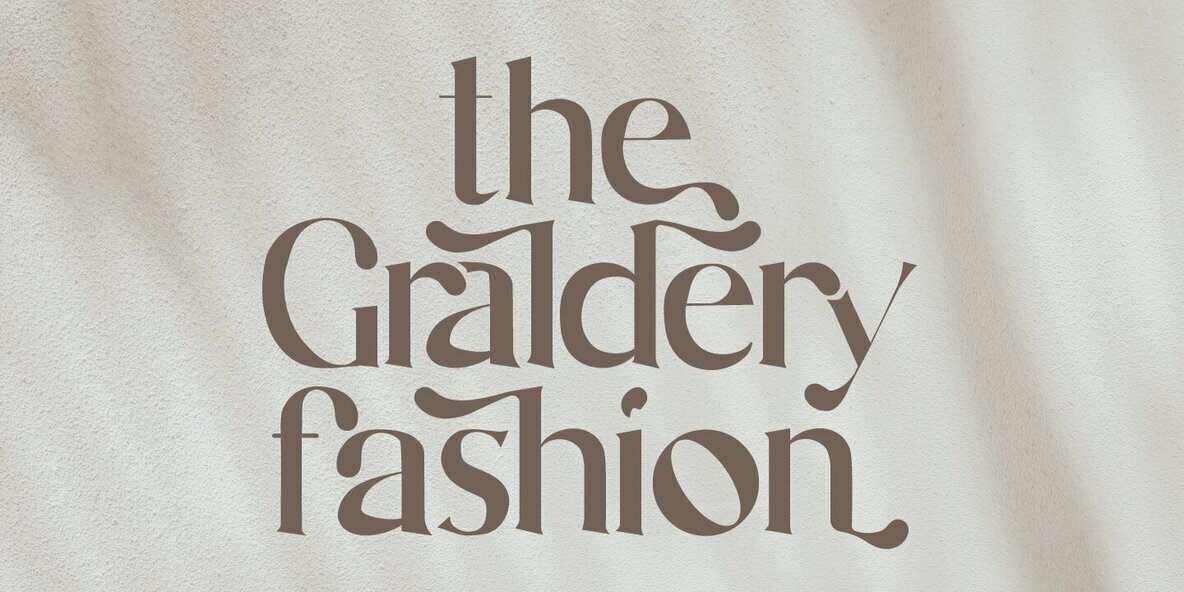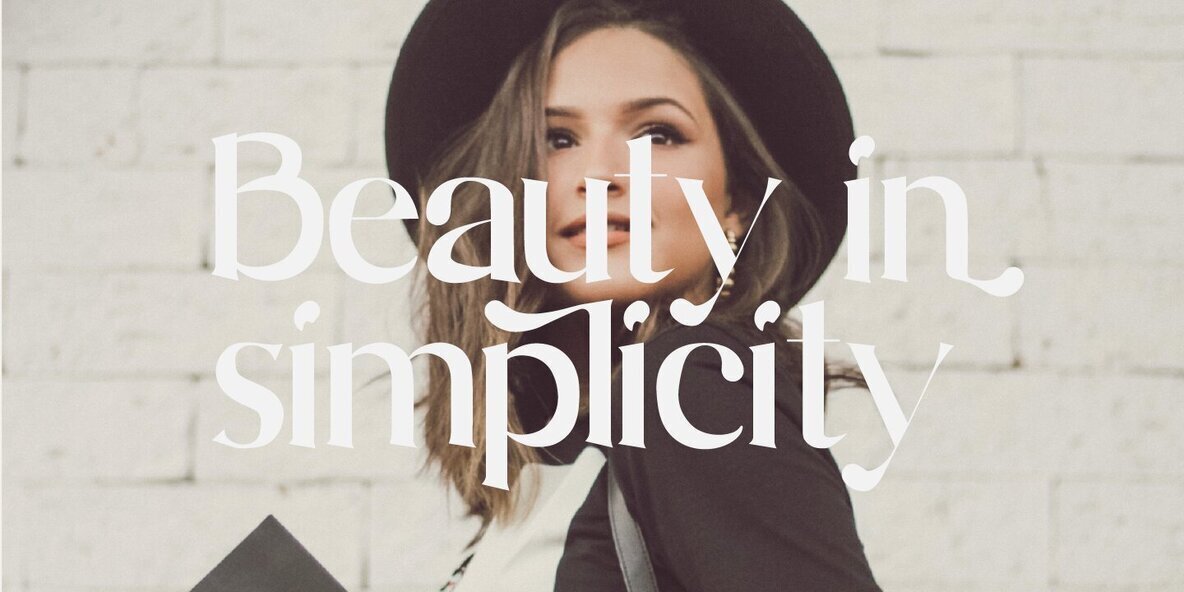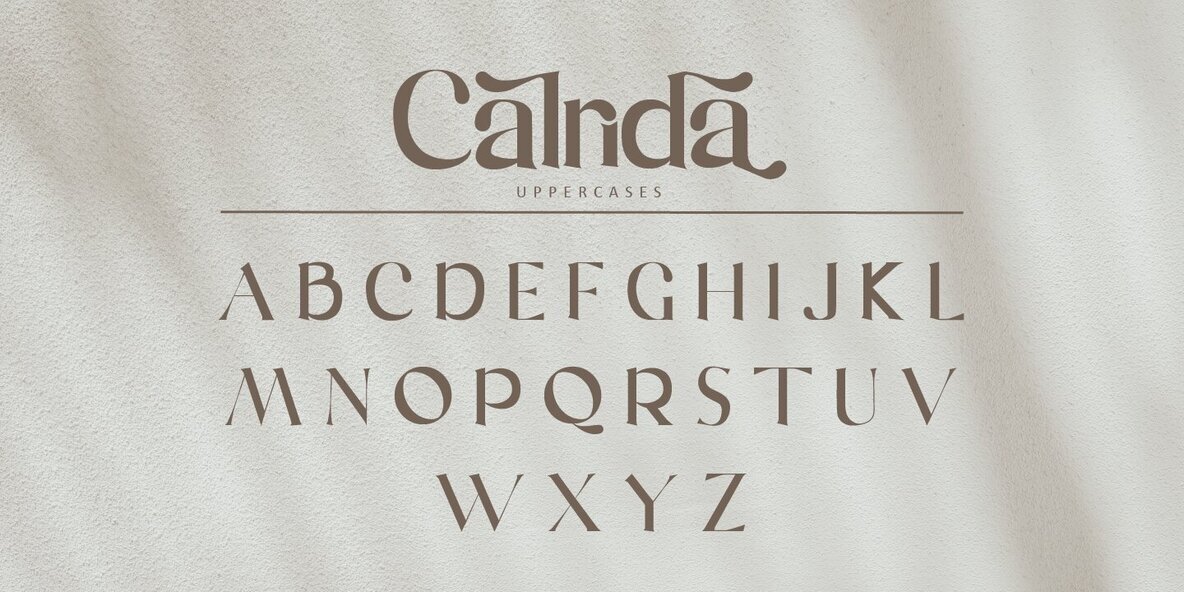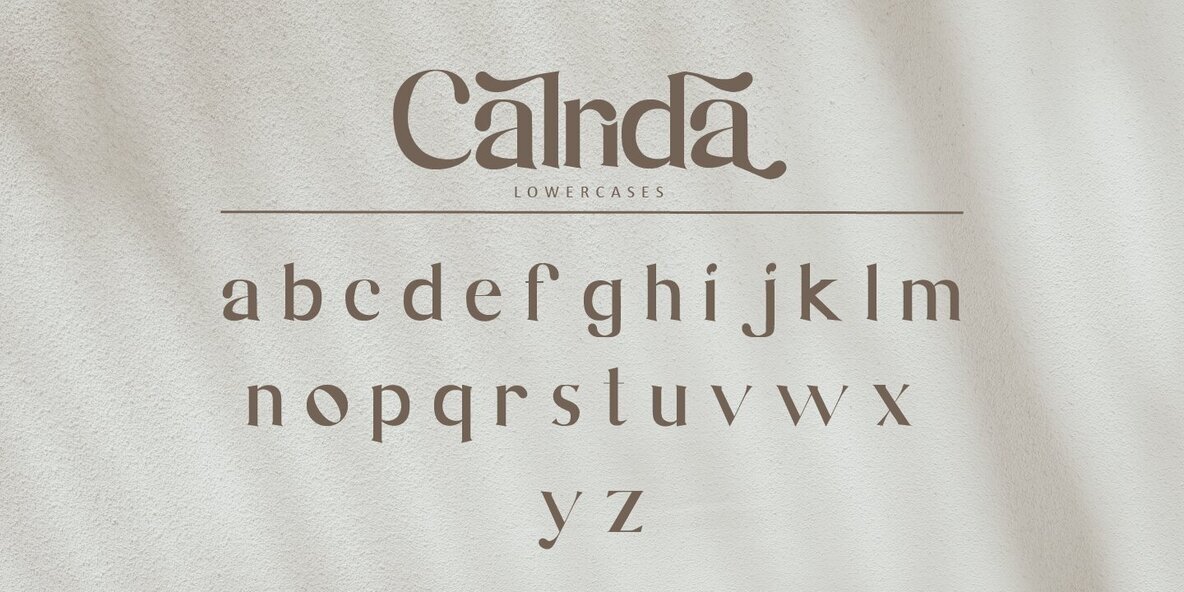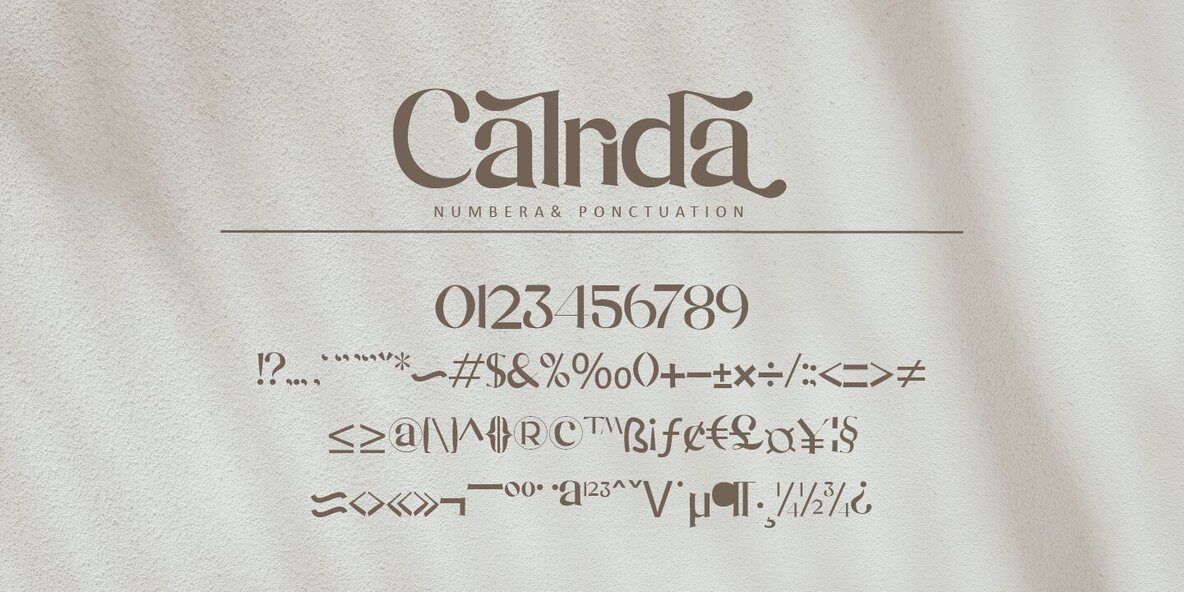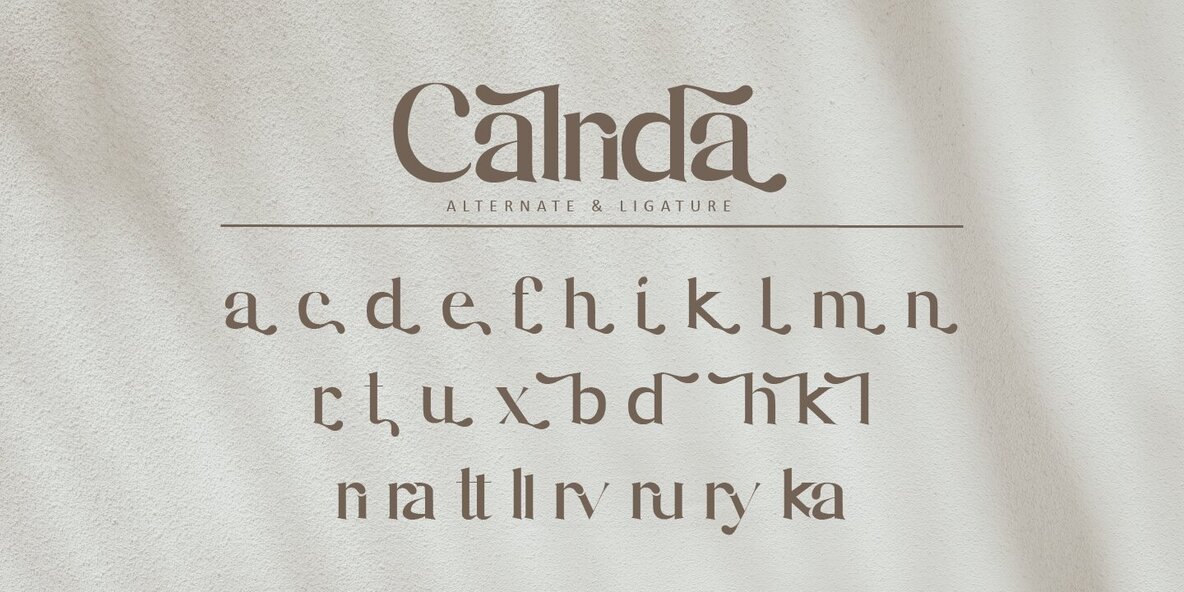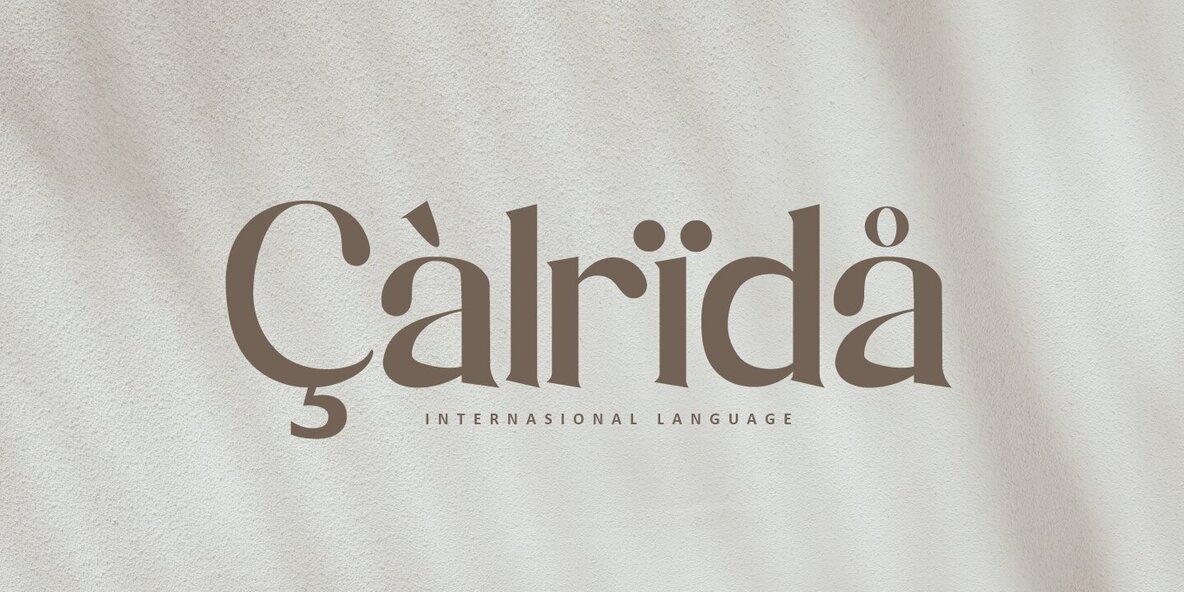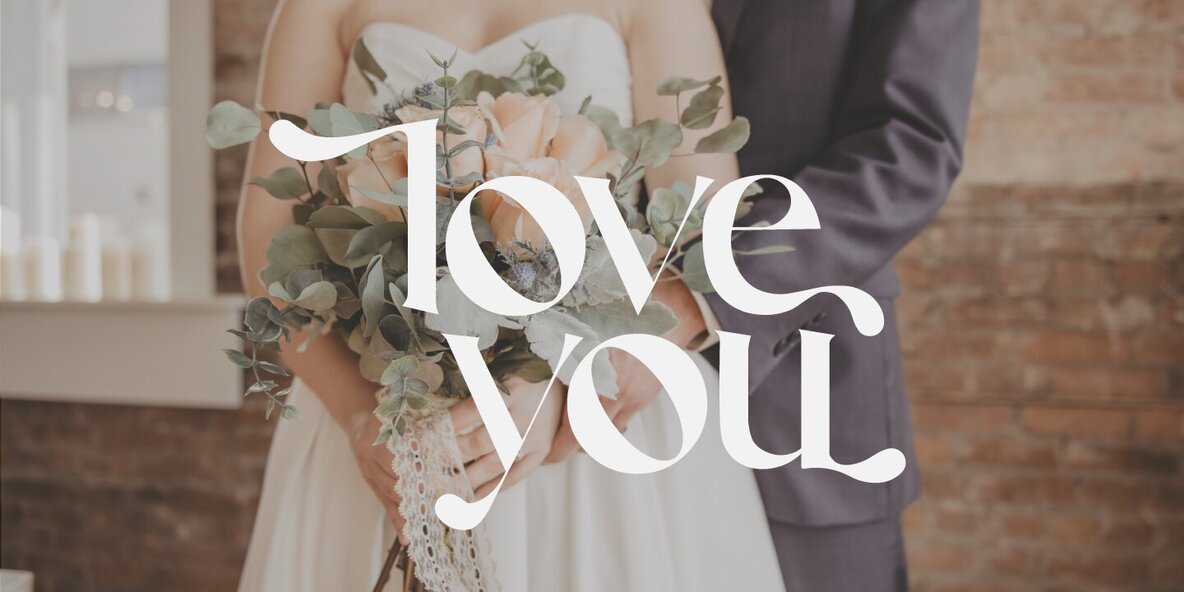
Calrida: A Versatile Serif for Sophisticated Designs
Calrida stands out as a serif typeface crafted with precision, making it an excellent choice for a wide array of creative applications. Whether you're designing logos for fashion brands or preparing elegant wedding photography, Calrida imparts a timeless elegance that enhances your project's visual appeal.
Exceptional Features
• Ligature – Provides seamless letter combinations for greater coherence.
• Stylistic Alternate – Offers additional aesthetic options for tailored designs.